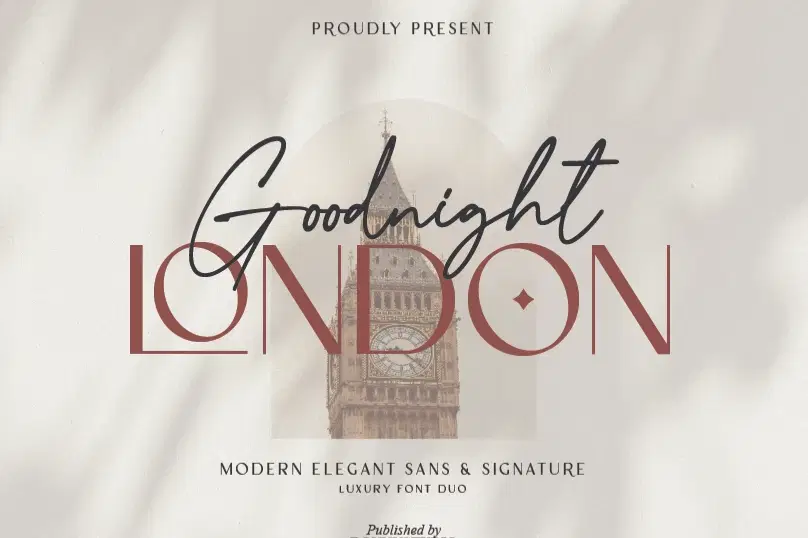
Goodnight London is a Duo Font with a blend of 2 fonts, namely the Sans & Script font. A luxurious font, with thick and thin sizes with a combination of handwritten script fonts, so that it adds an elegant, luxurious and classy impression. This typeface is perfect for logos, branding, travel promotions, social media posts, magazine layouts, product packaging, quotes, or simply as a stylish text overlay onto any background image.
Sans Serif Display & Signature Script Font